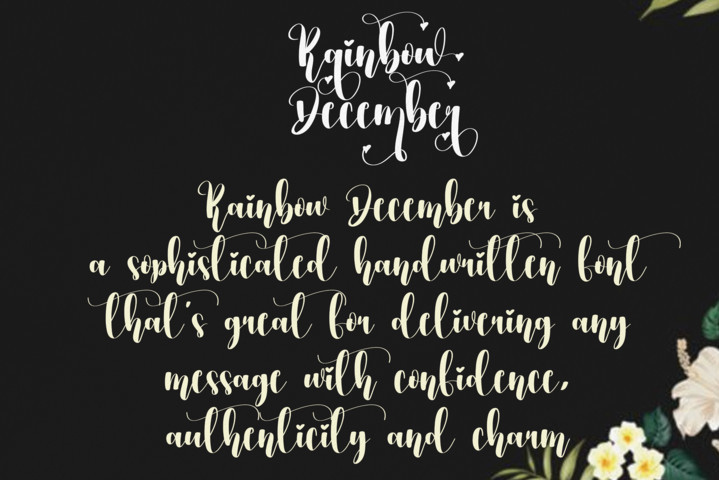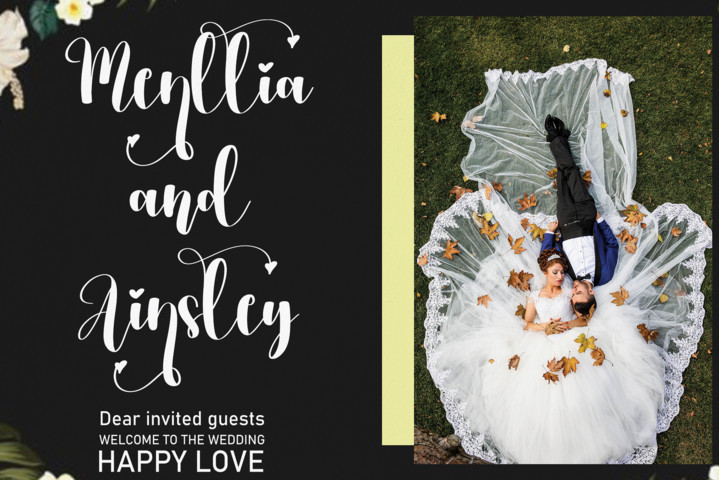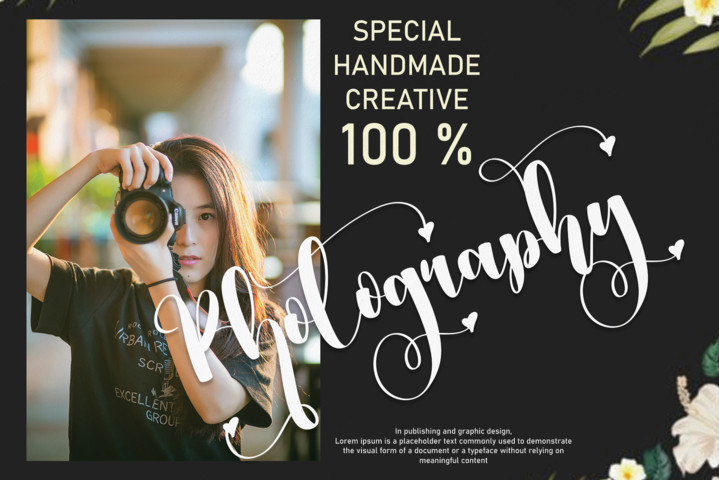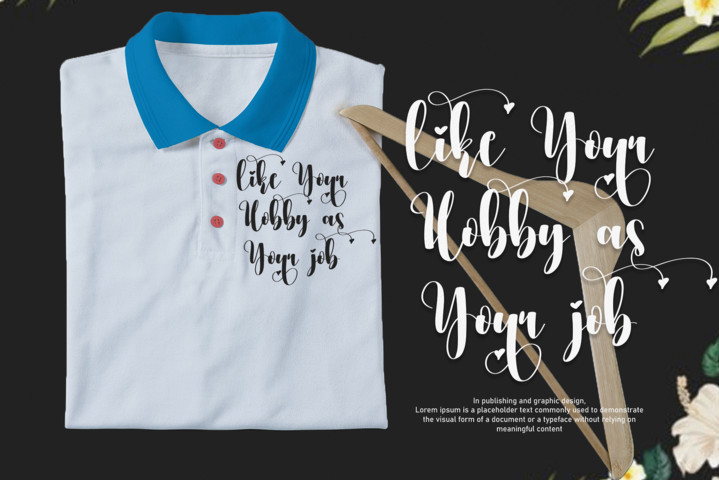
Rainbow December Script Font
It’s a romantic and sweet calligraphy typeface with characters that dance along the baseline. It will add a luxury spark to any design project that you wish to create! This font is PUA encoded which means you can access all of the amazing glyphs and ligatures with ease!